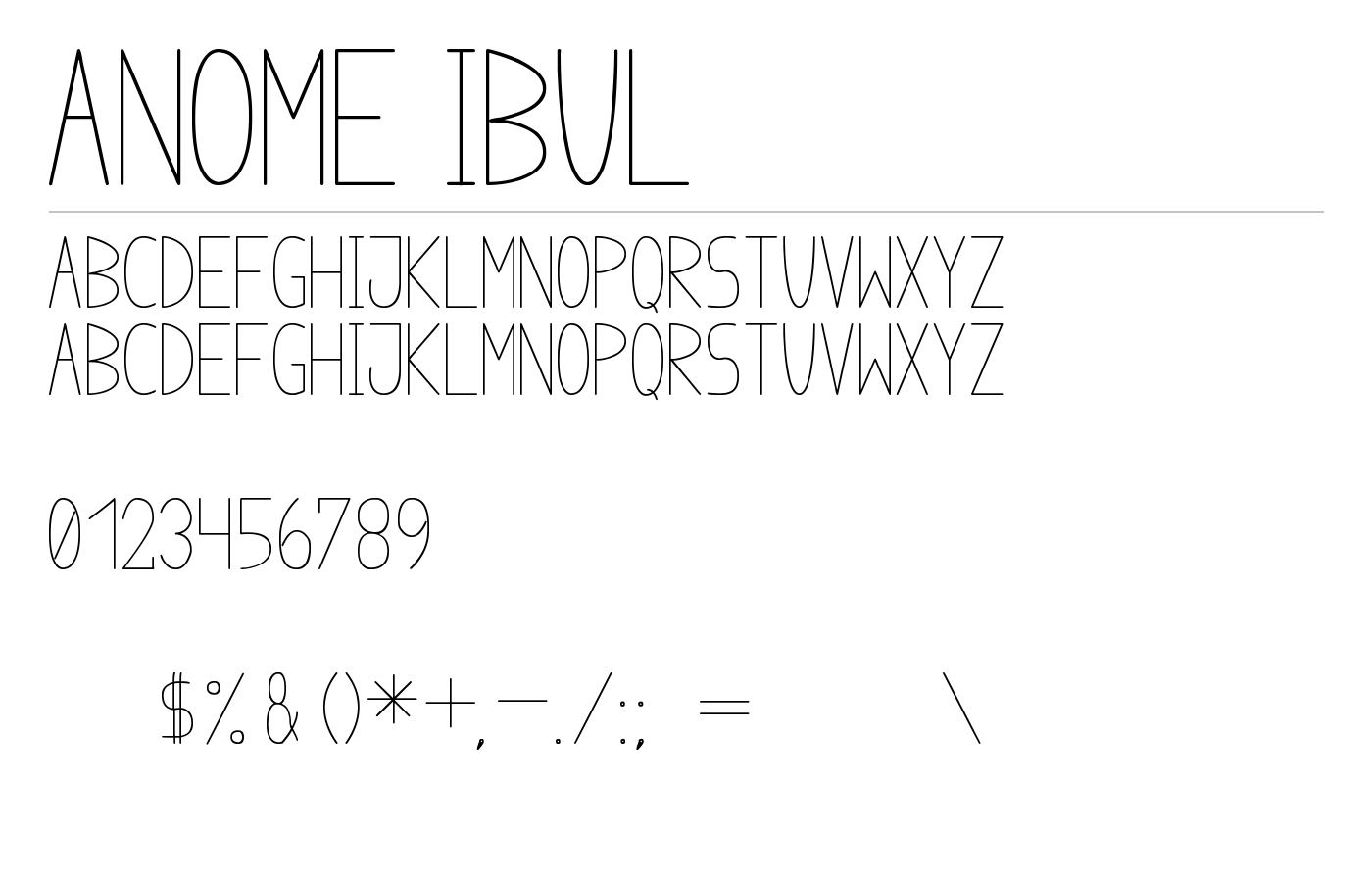
Anome Ibul is a delicate, narrow sans-serif font characterized by thin, consistent strokes and tall, slender letterforms. Its minimalist and modern style, combined with a playful, handmade charm, makes it ideal for trendy branding, creative headlines, and youthful editorial projects where a light, airy feel is desired. This font works best in display settings where its fine lines and unique shapes can stand out without losing readability.
About anome ibul Font